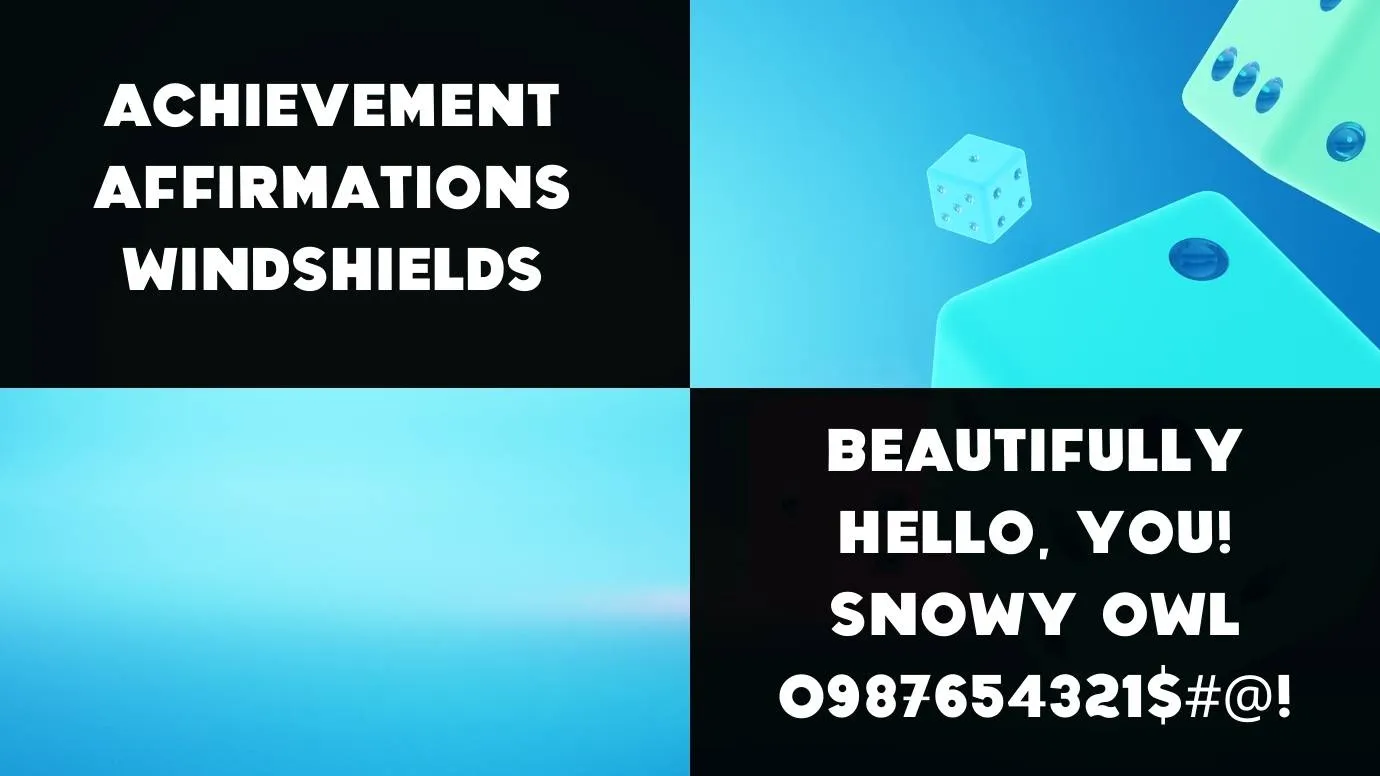
Cartoon Network Font is a logo typeface. This logo is used for the Cartoon Network. The typeface was designed by an American typeface designer. This typeface is based on the lettering of the network’s logo.
The typeface is available in three weights: light, regular, and bold. It is also available in two styles: normal and italic. You can use this typeface in the making of posters, banners, logos, book titles, magazine covers, fashion designs, shop names, and invitation cards.
It has a complete set of characters including uppercase, lowercase, numerals, and punctuation. This typeface is identical to the sonic hedgehog font. It also supports international characters.
Designer of Cartoon Network Font
This stunning and attractive typeface is created by American typeface designer James Lob for Cartoon Network.
This font style is created with a unique and regular style. This single attractive style is a combination of characteristics, including capital alphabets, small alphabets, punctuations, glyphs, digits, symbols, special characters, and a large number of language support.
| Name | Cartoon Network Font |
| Style | Logo |
| Designer | James Lob |
| Foundry | Cartoon Network |
Is Cartoon Network Font a Bad font?
No, it is not a bad font. It’s a great choice for any project that needs a fun and friendly feel.
Is Arial the same as Cartoon Network texture?
No, Arial is not the same as Cartoon Network typeface. They are two different fonts. Arial is a sans-serif style while Cartoon Network typeface is a logo typeface.